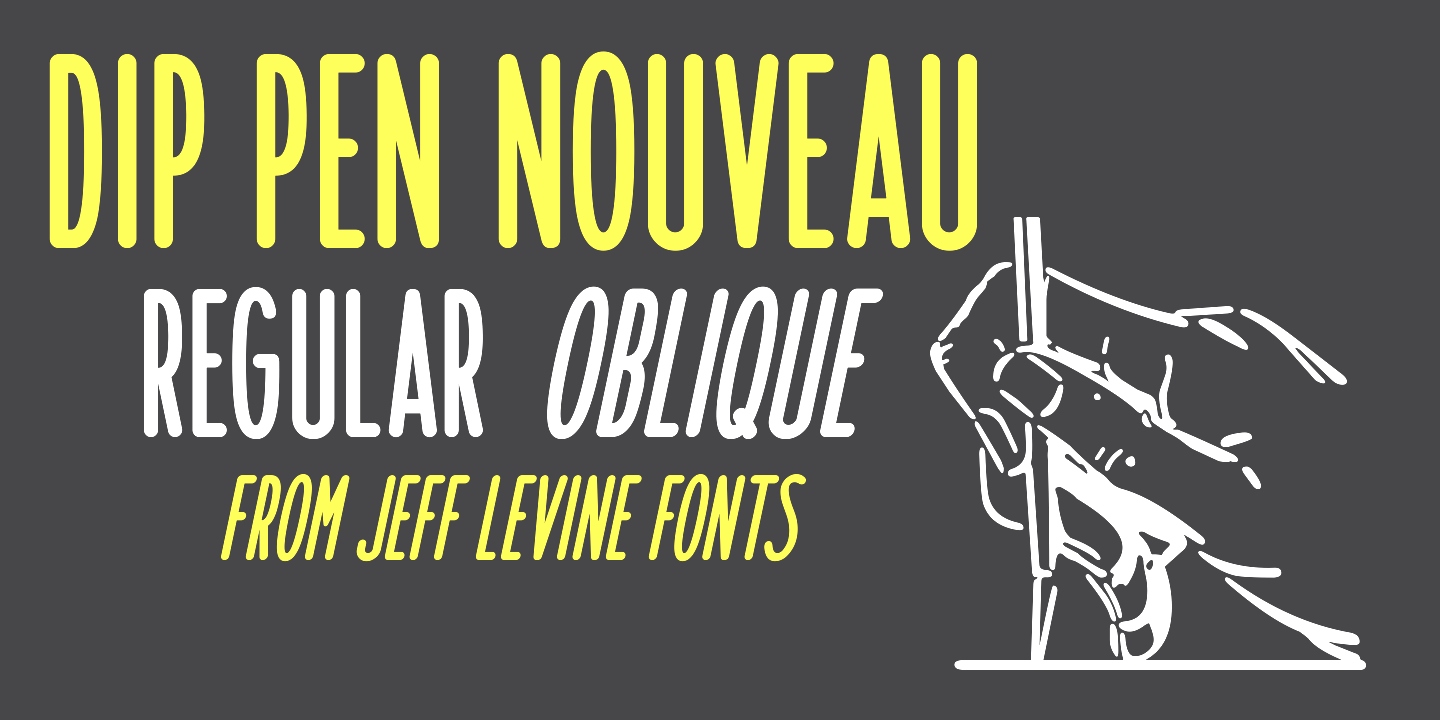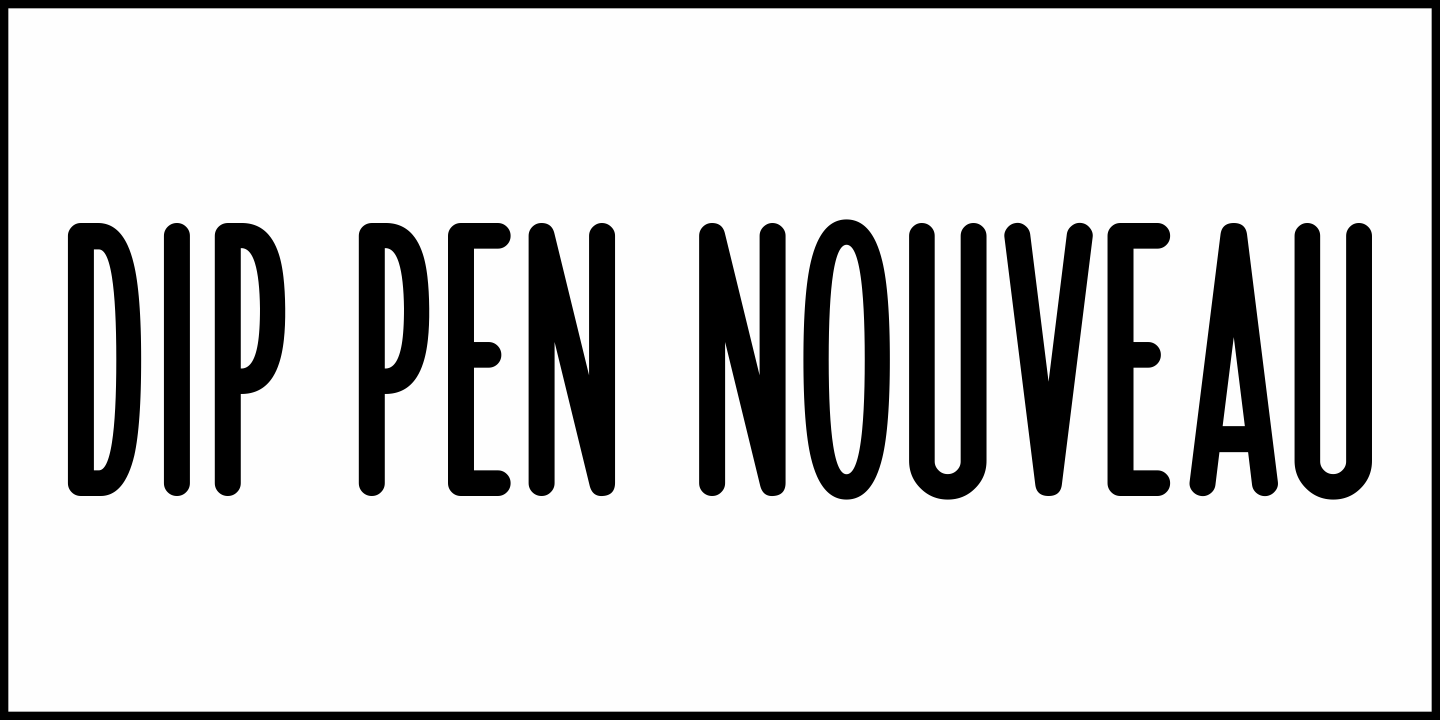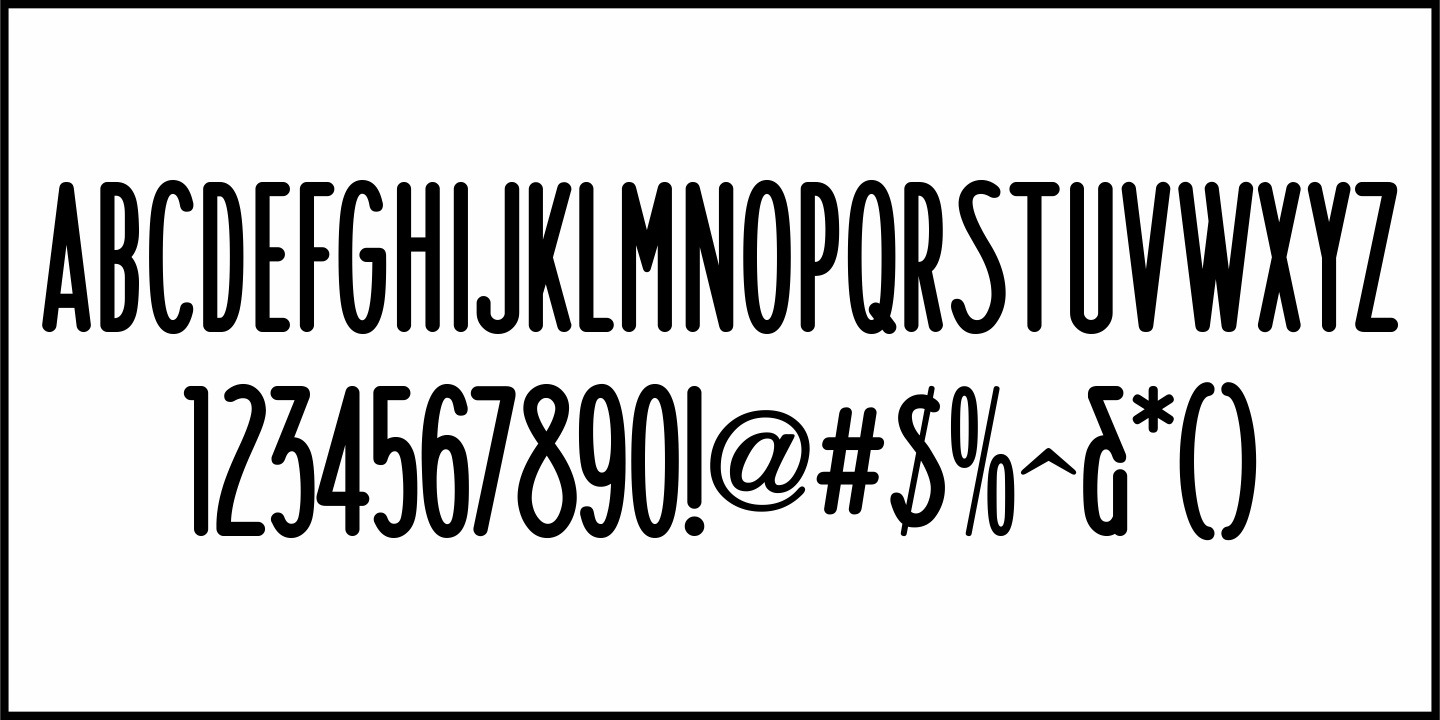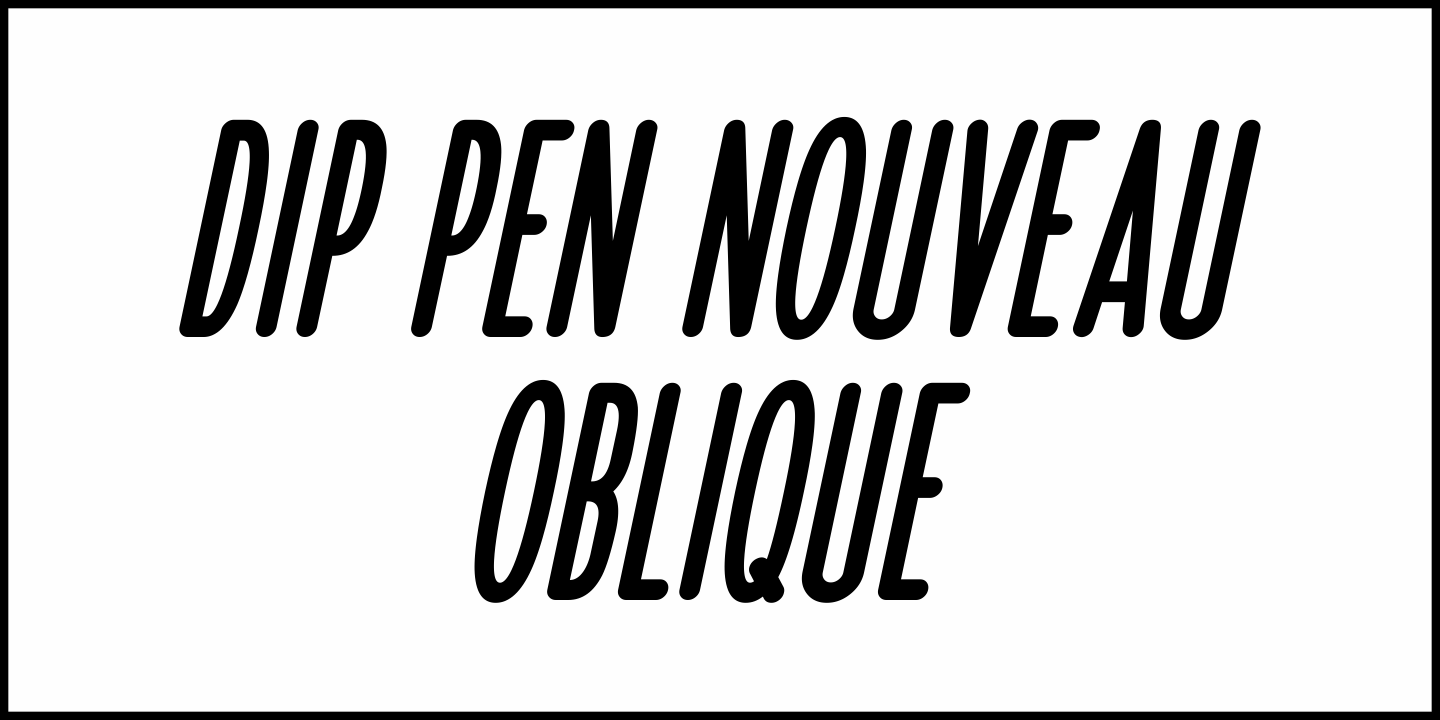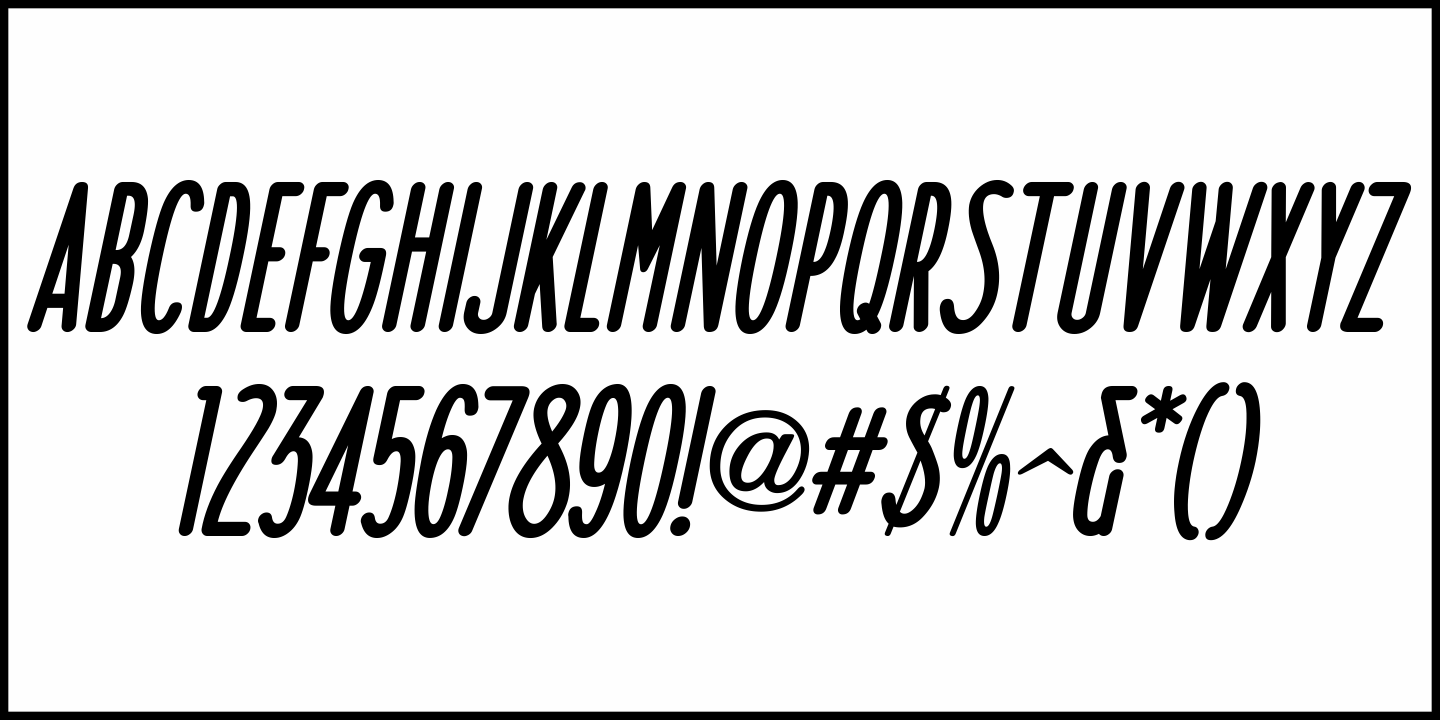
Dip Pen Nouveau
An ad in the November 11, 1914 issue of Motion Picture News for the Wurlitzer Theate Orchestra Organ contained hand lettering drawn by a round nib dip pen in a condensed sans serif style with Art Nouveau influences.
This was the design model for Dip Pen Nouveau JNL, which is available in both regular and oblique versions.